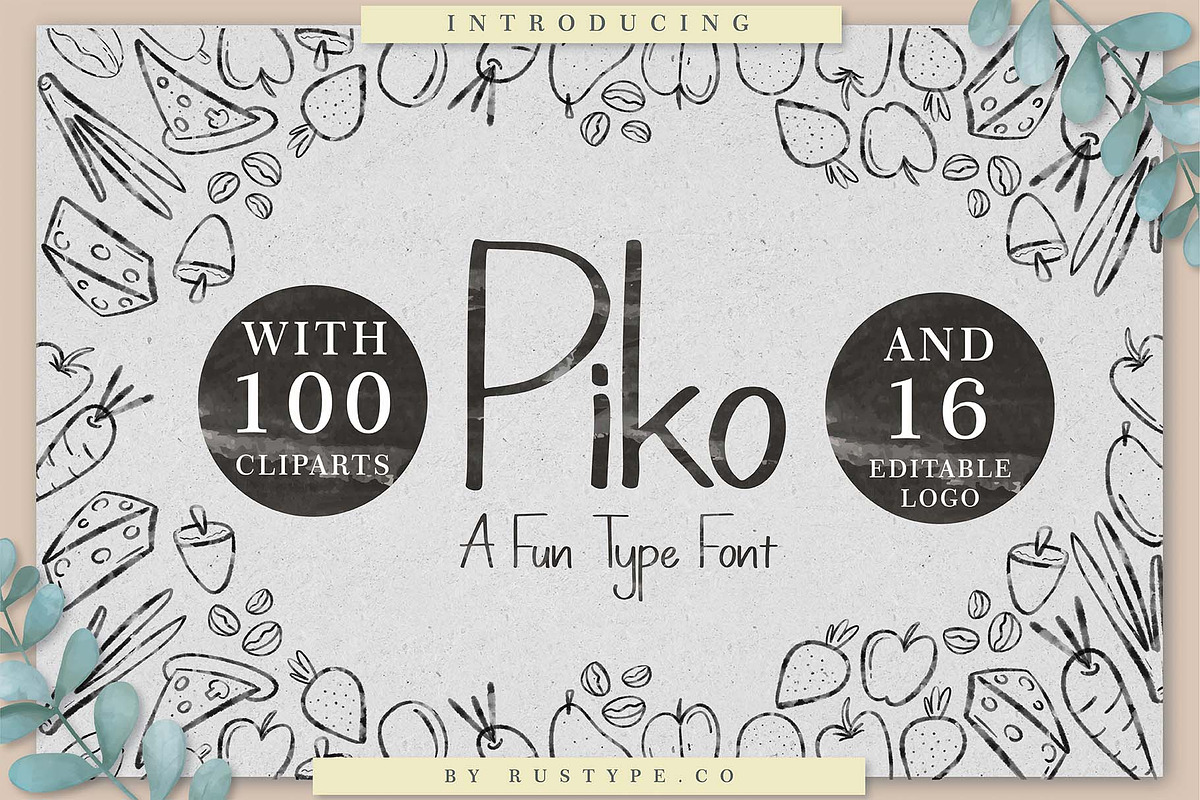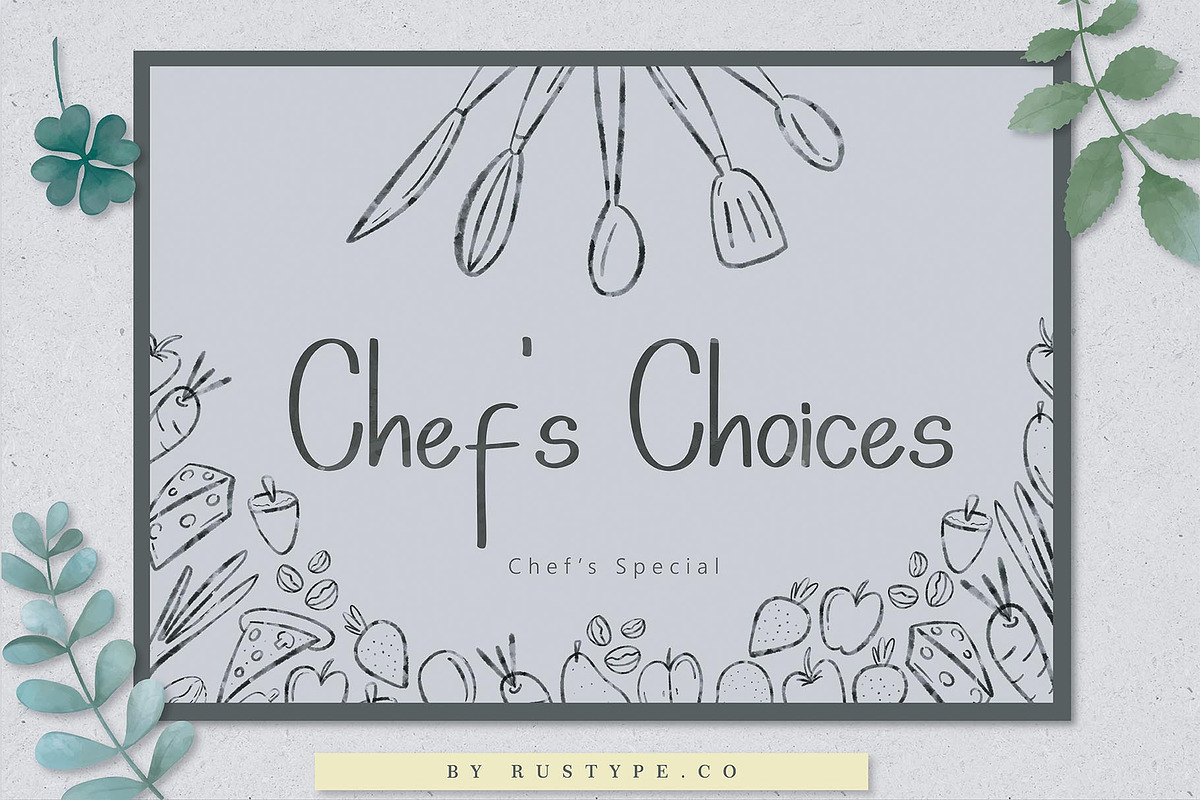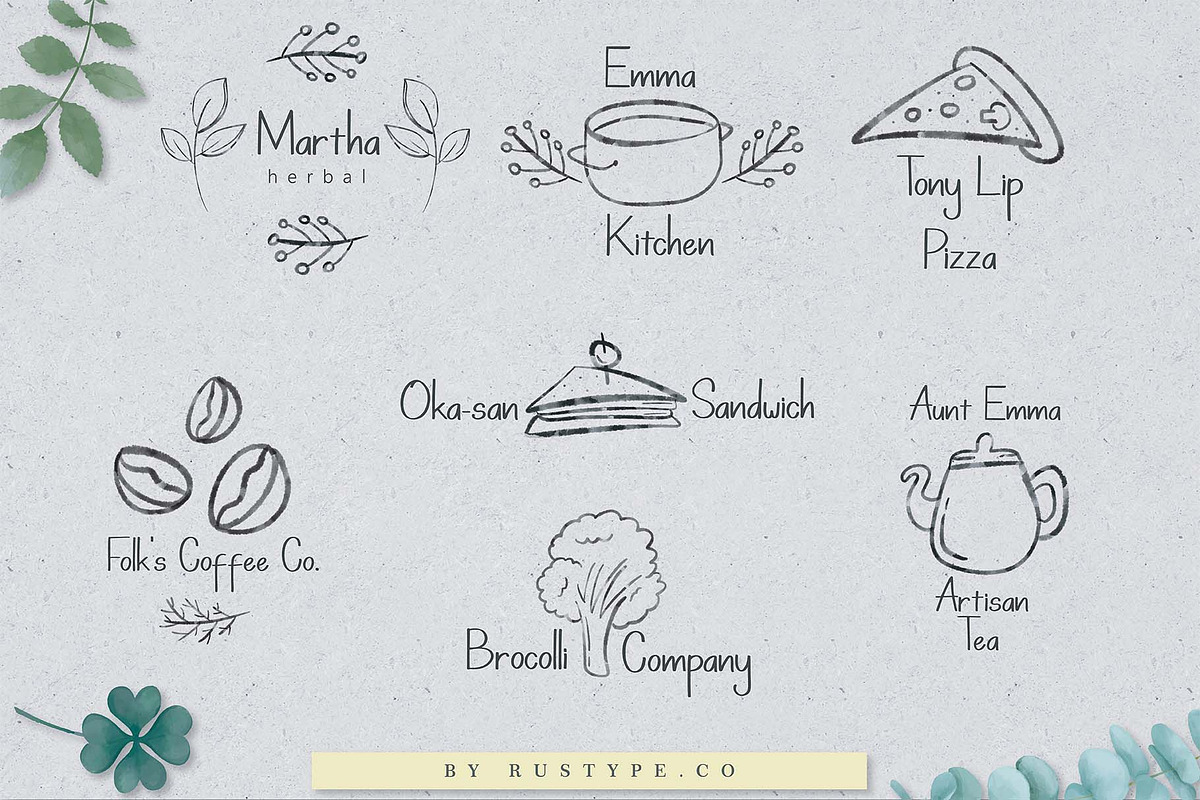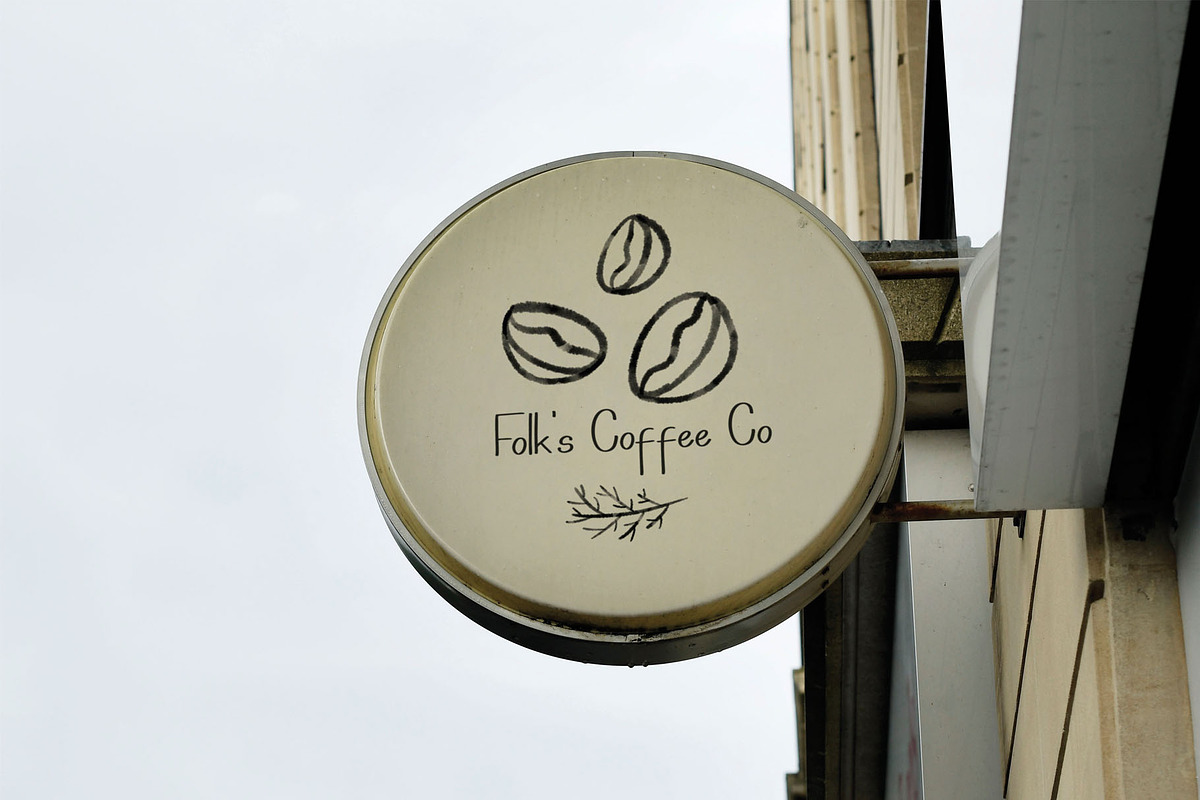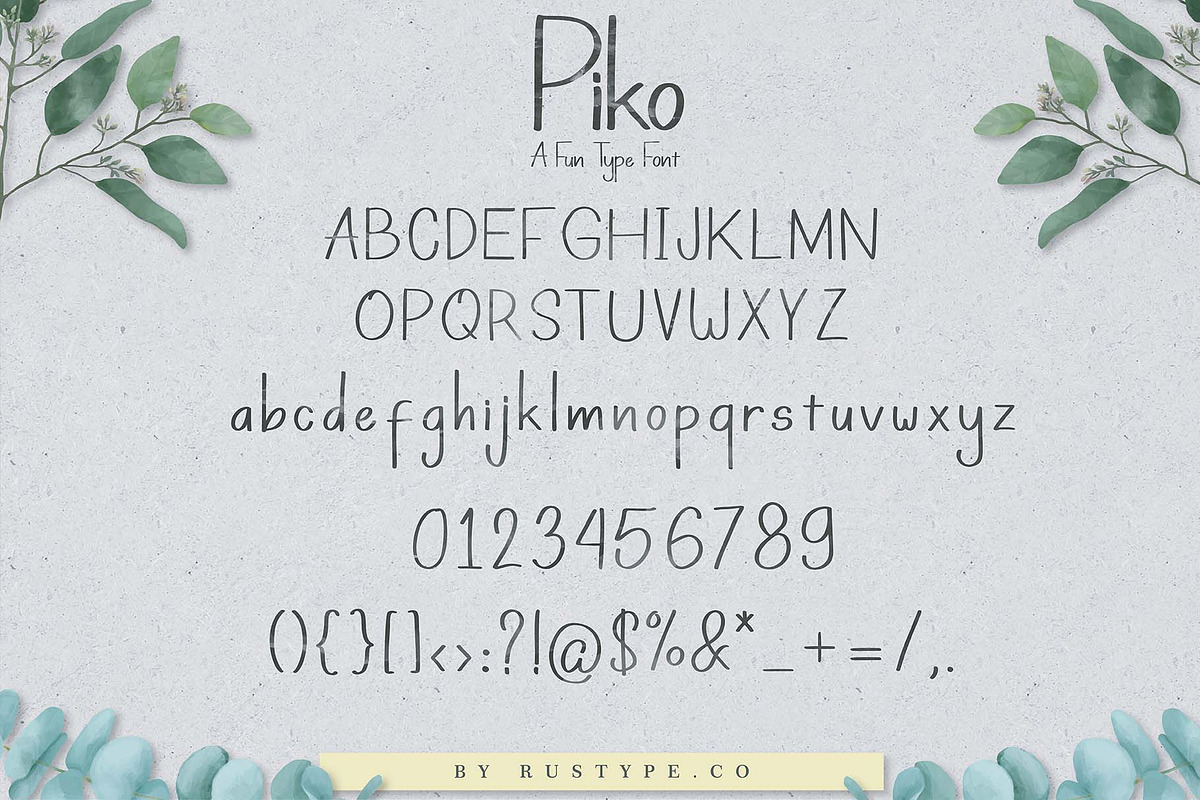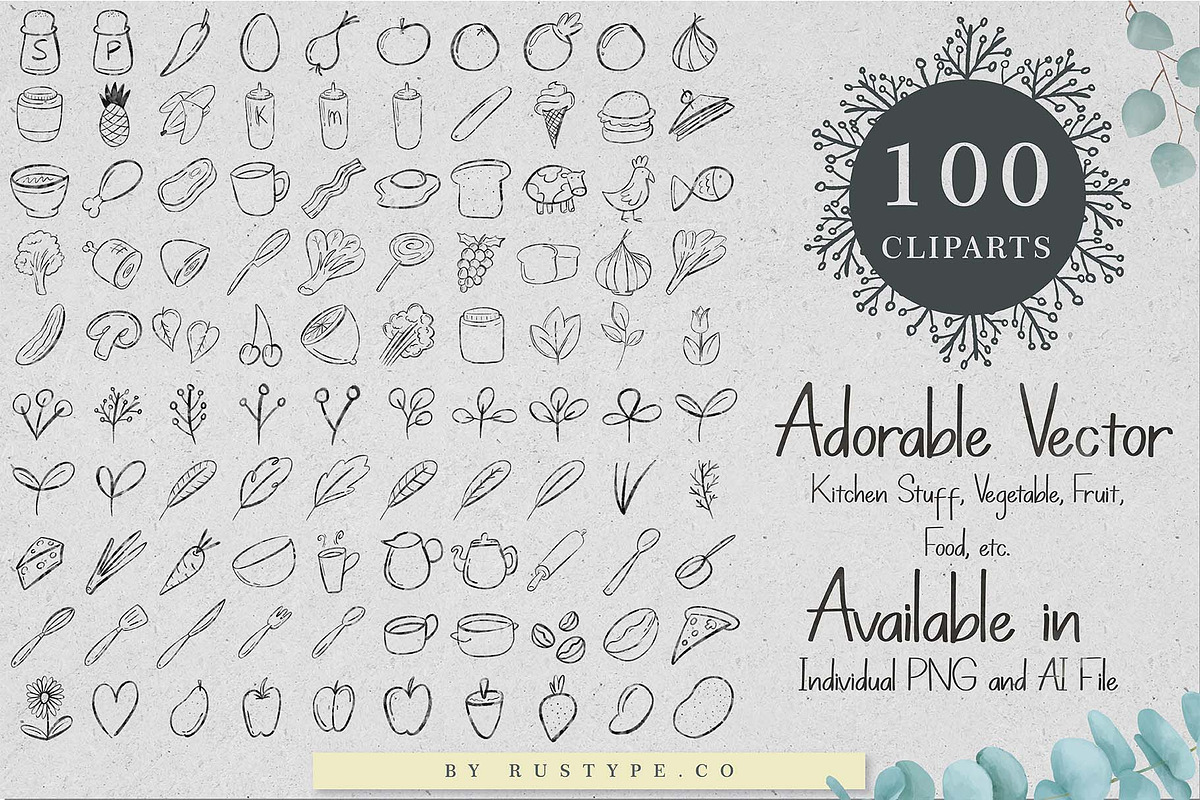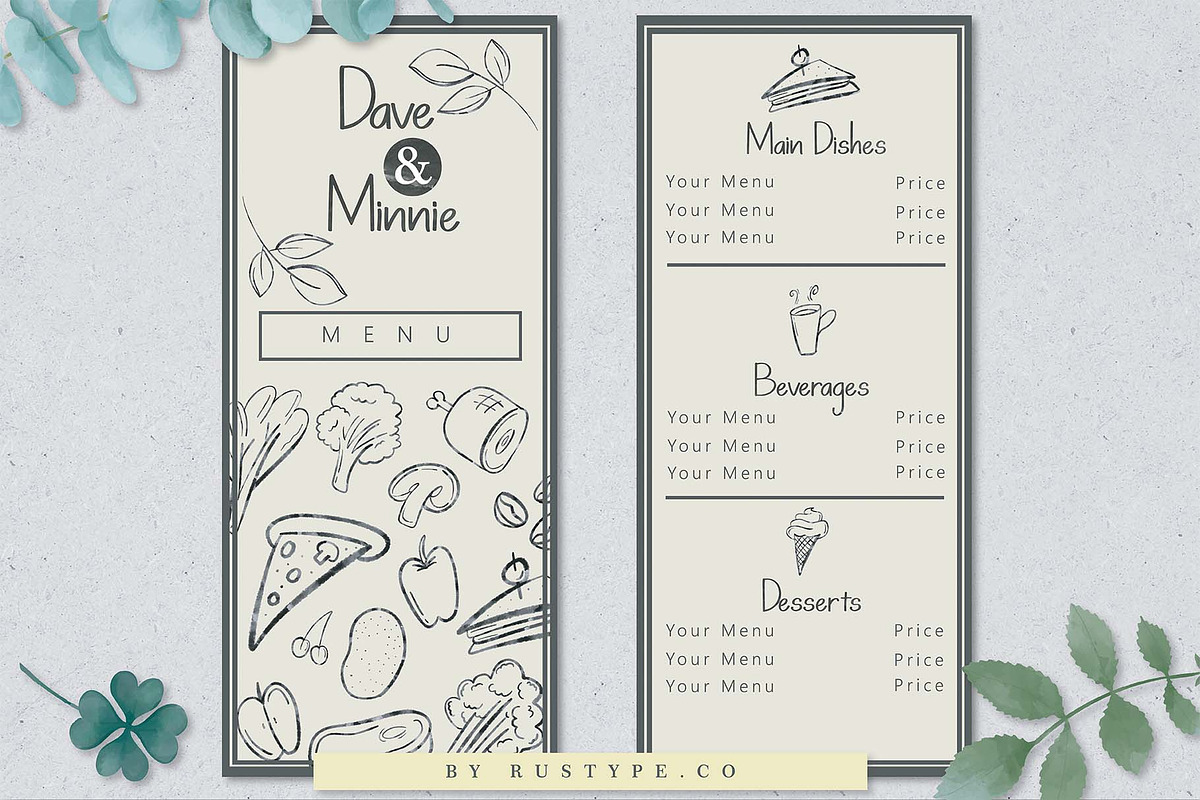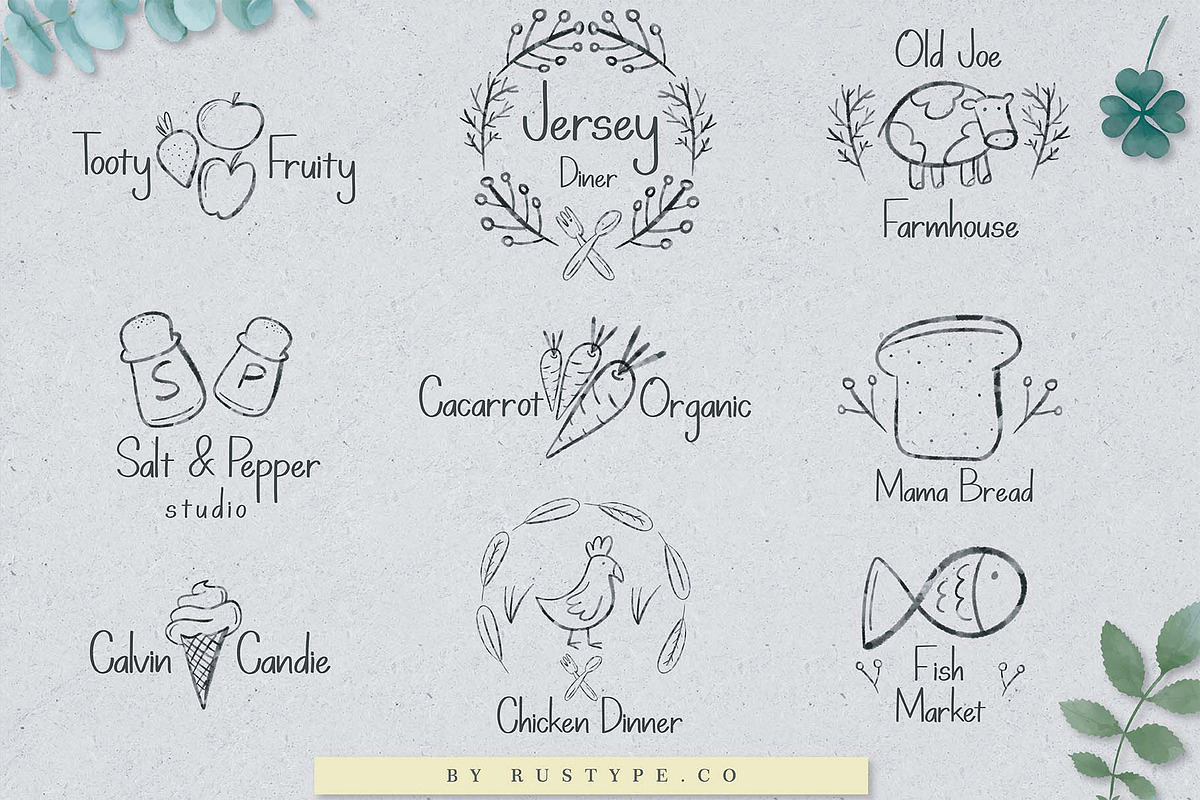
Piko A Fun Type Font
Introducing Piko "A Fun Type Font".
This is our latest product called Piko, kind of funny name doesnt it ? In this product we try to explore a new way to make a font more stunning and also keep it simple, but also still
We glad to inform you that this font does come with a pack of watercolor clipart, the clipart element that we include in this bundle come from many things that we almost see everyday.
Its not 10 or 50, it is 100 watercolor clip art bonus that are ready to use for our customers. Dont forget about those 16 extra premade logo that you can modify as you desire for your own amazing project.